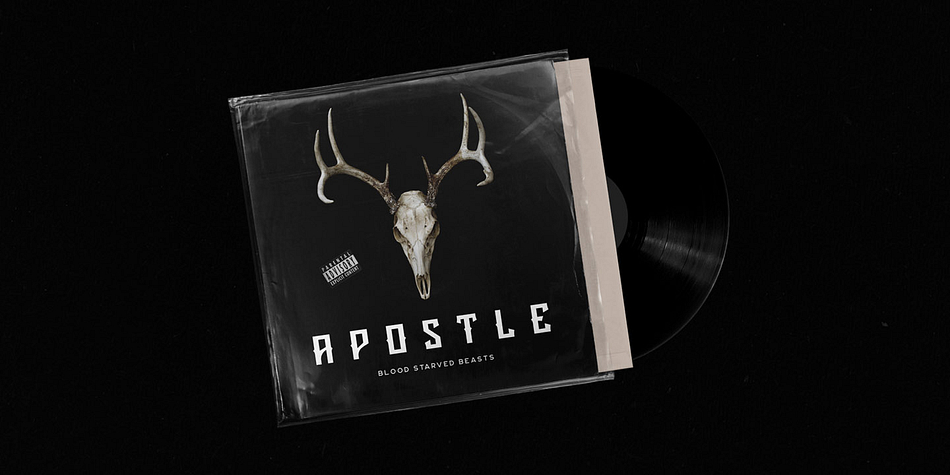
BLIGHT
Blight is a display and wood type font family. This typeface has two styles and was published by Tugcu Design Co.
Blight is a strong display type with uppercase multilingual letters, a couple of alternate letters, numbers and punctuation. It comes in regular and rough styles.